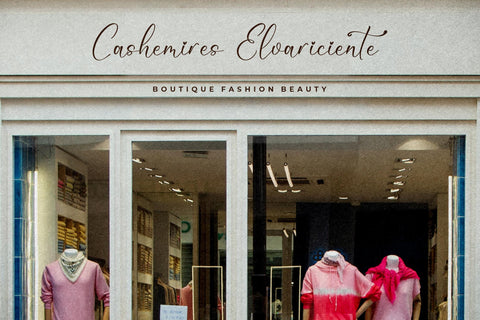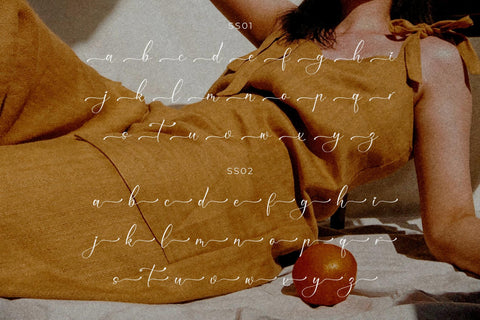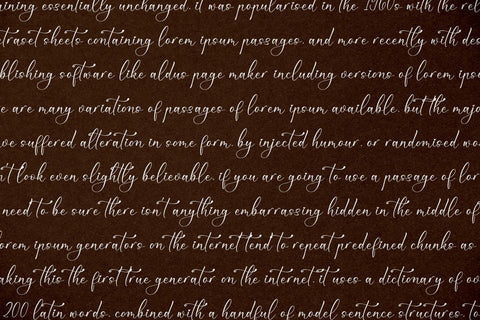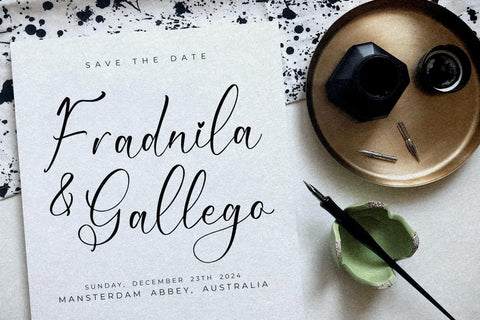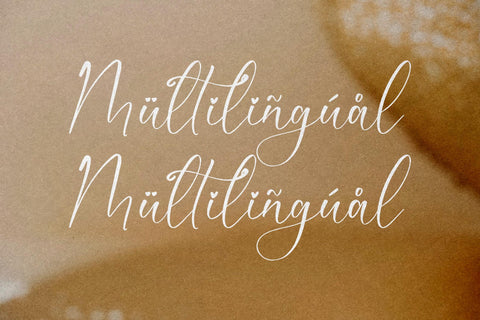
Romanttyca Bellmonde - Beauty Script Font
Proudly present Romanttyca Bellmonde - Beauty Script Font , created by Storytype,
A luxury script that has own unique style & modern look.